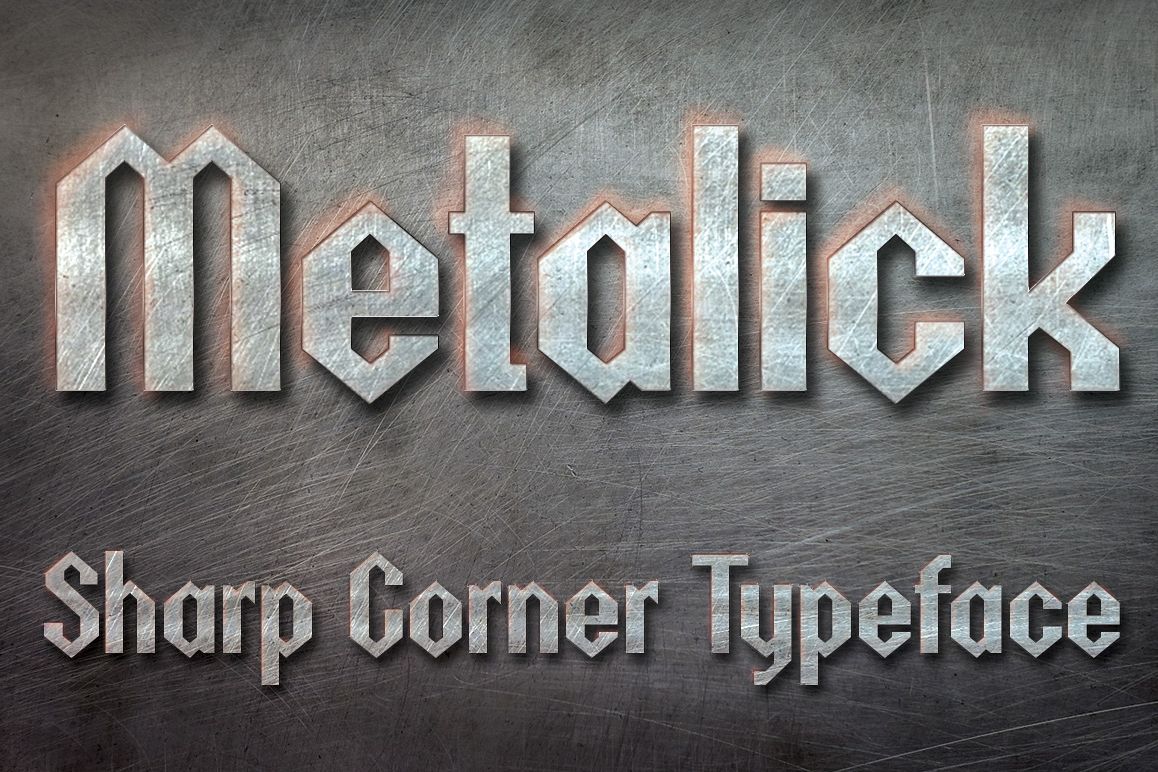
Metalick Bold Font
Metalick
Introducing modern and Hi tech font. This font nice for computer theme, technology, modern, etc. Featured with 275 glyph with complete character for Latin and Eastern Language.